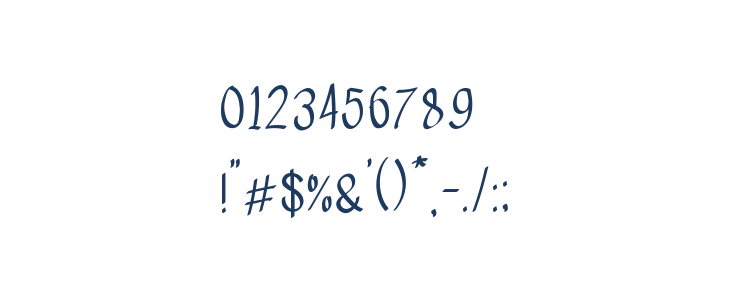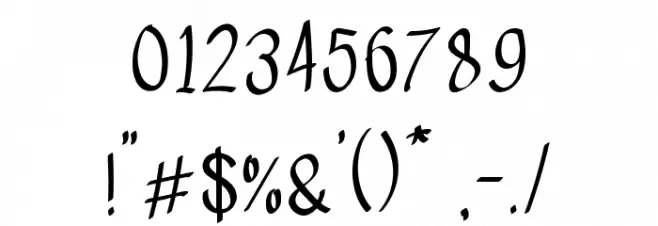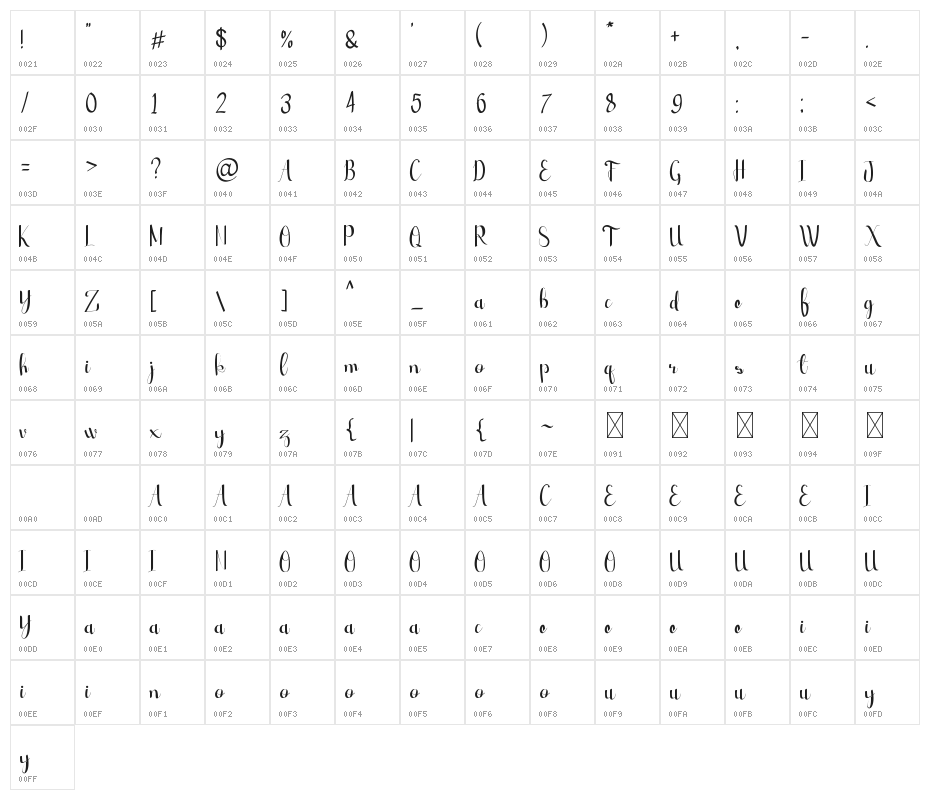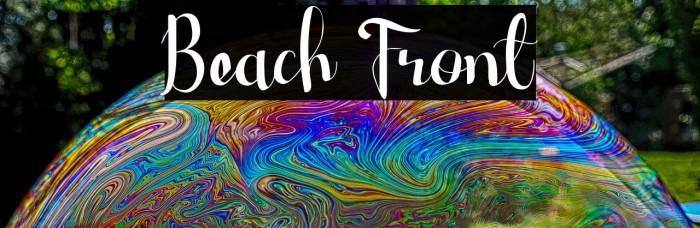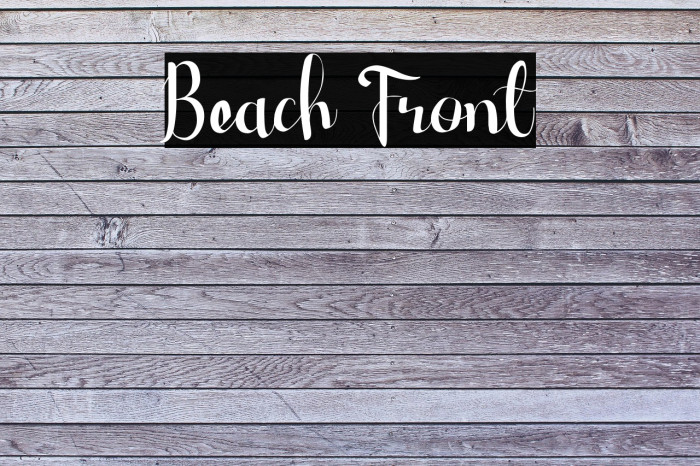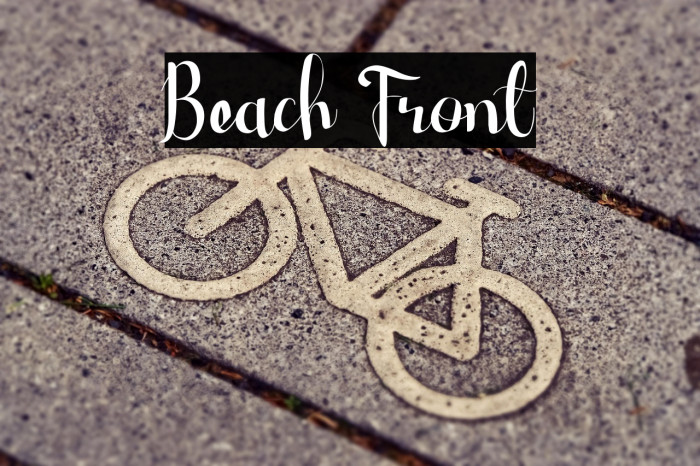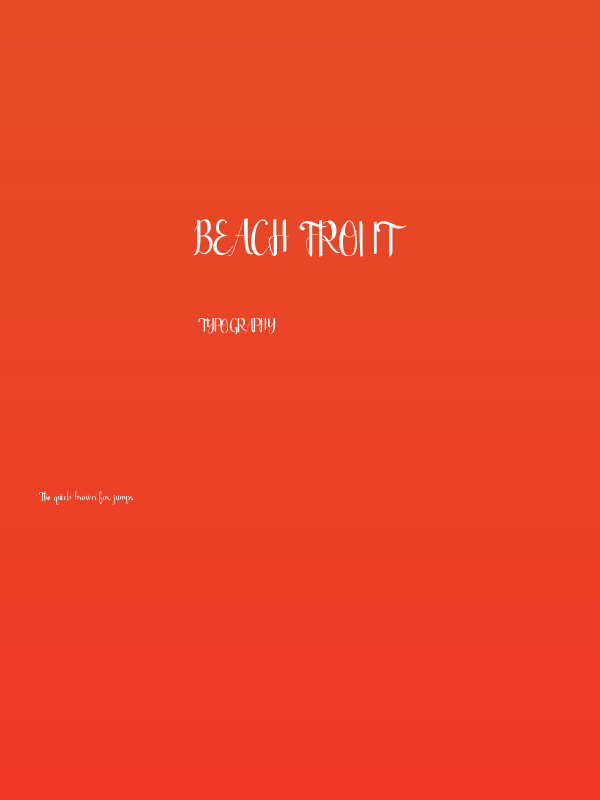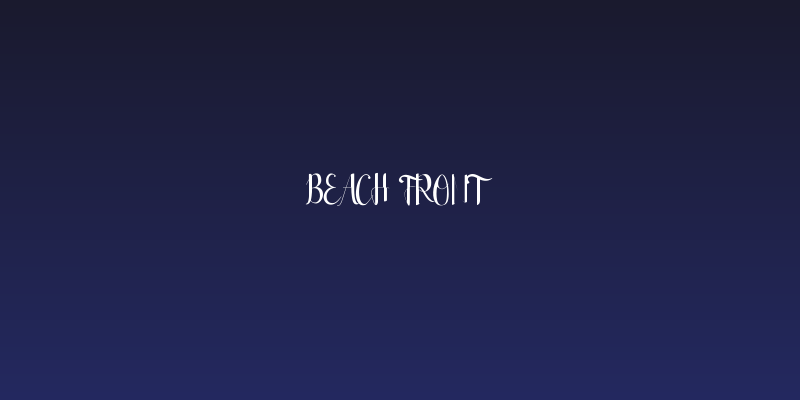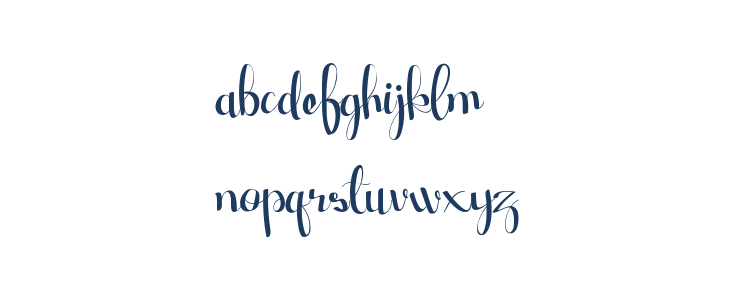
Beach Front Font
Beach Front Description
This font exhibits a flowing, cursive style with elegant, sweeping curves and a playful yet sophisticated appearance. The uppercase letters are characterized by their tall, slender forms and intricate loops, while the lowercase letters maintain a consistent fluidity and grace. The numerals are distinct and clear, maintaining the font's overall whimsical aesthetic. Special characters are creatively designed, adding to the font's charm. This font is ideal for projects that require a touch of elegance and creativity.
| Use Case | Logos, Invitations, Decorative Text |
| Proposed Projects | Ideal for wedding invitations, greeting cards, branding, and elegant logo designs. |